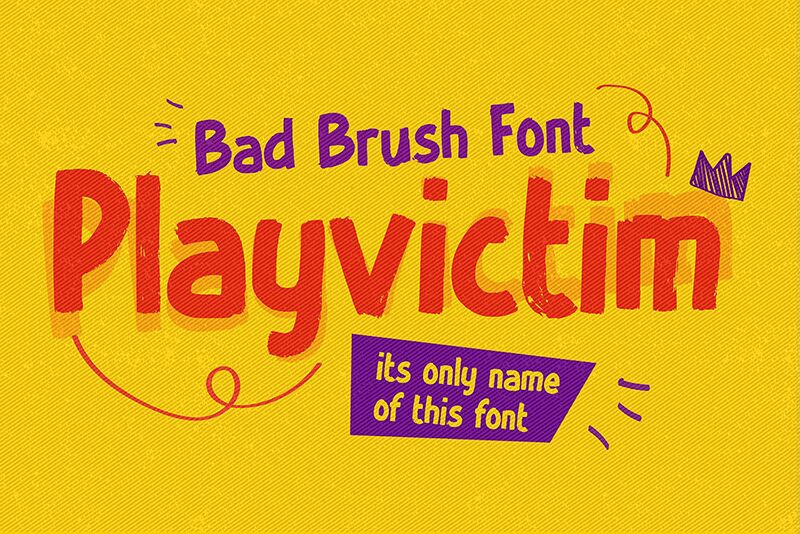
PLAYVICTIM
Playvictim by Gassstype is not just a font-it's a statement. With its bold, semi-condensed brush strokes, this font infuses modern style with dramatic movement, capturing the essence of spontaneity and authenticity. Designed to mimic the look of quick, casual handwriting, Playvictim stands out in its ability to make designs appear vibrant and full of personality.
Ideal for an array of creative endeavors, Playvictim excels in crafting eye-catching labels, compelling posters, and engaging projects that demand a touch of modern flair and fun. The natural brush quality lends itself to a more organic feel, making it perfect for branding that desires an authentic edge or packaging that speaks with character. Whether gracing greeting cards or overlaying photography, this font has the versatility to elevate your message with its distinct presence.
Embrace the playful yet earnest spirit of Playvictim-where every stroke tells a story.